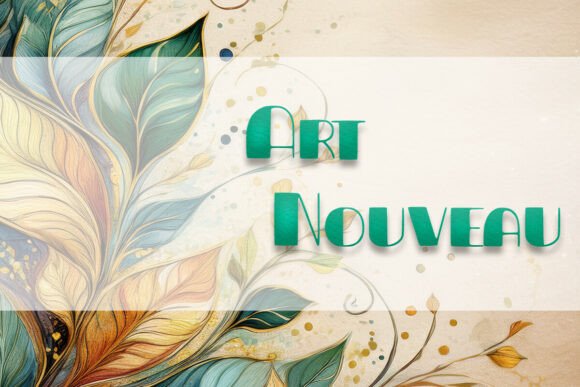
Unlock the Elegance of Your Designs with Art Nouveau Font
Have you ever been scrolling through your social media feed and suddenly come across a design that stops you in your tracks? The way the letters dance across the screen, the curves and lines that seem to flow effortlessly, and the overall sense of sophistication that screams ‘look at me’? That’s the magic of a well-designed font, and today, we’re going to talk about one that’s sure to make your designs stand out: the Art Nouveau Modern font.
Tailored to perfection, this font is a perfect fit for any creative project you can think of, from shirts and stickers to magazine layouts and Cricut projects. Its unique style and elegance make it a valuable asset for designers looking to elevate their work and make a lasting impression.
Art Nouveau Font Key Features
- Unique Characteristics: The Art Nouveau font features flowing, organic lines and intricate details, evoking the elegance and sophistication of the Art Nouveau style.
- Font Pairing: Designed to pair well with other Art Nouveau-inspired fonts, as well as modern sans-serif fonts, allowing for a range of design possibilities.
Art Nouveau Font Review
Art Nouveau Font is a beautiful, elegant font that’s sure to catch anyone’s eye. I love how it adds a touch of sophistication to any design project. ✨ Its flowing lines and organic curves make it perfect for creating a luxurious feel.
One of the standout features of Art Nouveau Font is its versatility. It can be used for a wide range of projects, from posters to packaging, and still looks amazing. ✨ It’s also highly customizable, allowing you to adjust the size, color, and spacing to fit your needs.
While Art Nouveau Font is an excellent choice for many projects, there are a few limitations to be aware of:
- ⚠️ Limited character set: The font only includes uppercase and lowercase letters, with no support for special characters or punctuation.
- ⚠️ Not suitable for small text: Due to its ornate design, Art Nouveau Font can be difficult to read when used for small text sizes.
Overall, I think Art Nouveau Font is a great addition to any designer’s toolkit. It’s a beautiful, elegant font that can add a touch of sophistication to any project. With a little creativity and experimentation, you can overcome its limitations and create stunning designs. ✨
The Art Nouveau Font is ideal for:
1. Creating elegant invitations and event materials.
2. Designing luxury branding and marketing materials.
3. Adding a touch of sophistication to digital products and websites.
4. Enhancing the aesthetic of historical or vintage-inspired designs.
Alternatives to Art Nouveau Font
1. Copperplate Script
Copperplate Script is a classic calligraphy font that mimics the style of copperplate engraving. It’s ideal for use in formal invitations, certificates, and other documents where elegance and sophistication are required.
Compared to Art Nouveau Font, Copperplate Script is more formal and less ornate. While Art Nouveau Font features flowing lines and organic shapes, Copperplate Script has a more rigid and structured feel.